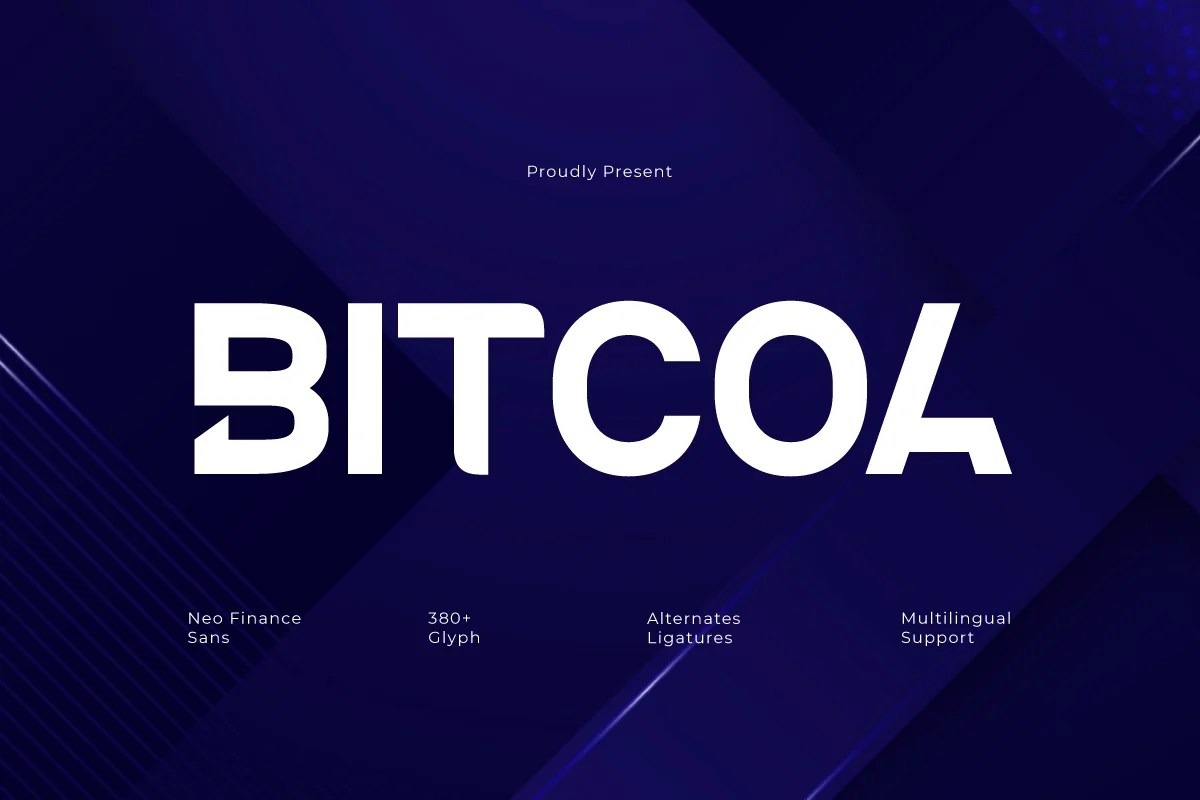
Bitcoa – Geometric Sans Serif Font
Bitcoa – Geometric Sans Serif Font is a flexible and reliable font created to fit multiple design needs, from branding and packaging to social media and editorial layouts. Bitcoa is a Neo Finance Sans typeface designed to represent professionalism within the Fintech and digital banking industries. Featuring clean and precise geometric letterforms, this font delivers a futuristic yet trustworthy impression. Its characteristics are ideal for a Modern Financial Ecosystem that prioritizes a minimalist and technology-oriented visual identity.
The design structure focuses on high readability to support a seamless transaction UI experience on digital platforms. Inspired by modern banking visual standards, Bitcoa ensures every detail of text and numbers remains clear across both the mobile app interface and the financial dashboard. This helps designers create a layout that is functional, clean, and conveys a high sense of credibility to users.
As a future-ready digital typography solution, Bitcoa offers flexibility for corporate branding, crypto platforms, and modern business identity systems. With its solid and balanced letter anatomy, this font enhances premium visual appeal across various promotional media. Bitcoa is a strategic choice for brands aiming to appear strong, innovative, and ready for the evolution of global financial technology.